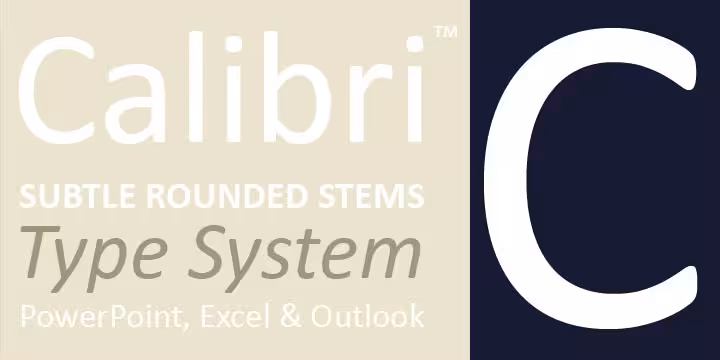
Microsoft’s default font is at the center of a government corruption case
After creating a font in 2004, its creators probably never thought it’d be used as evidence in a government corruption case. Microsoft, for its part, couldn’t have foreseen it either after making Calibri the default option on products like PowerPoint, Excel, Outlook, and WordPad in 2007.
Unintended use case aside, Calibri currently sits at the center of a corruption investigation involving Pakistan’s Prime Minister, Nawaz Sharif.
Accused of illegally profiting from his position since the 1990s, Sharif is now under investigation by the Joint Investigative Team — a collective of Pakistani police, military, and financial regulators — after a treasure trove of evidence surfaced with 2016’s release of The Panama Papers.
In a report obtained by Al Jazeera, investigators recommended a case be filed in the National Accountability Court after concluding there were “significant gap[s]” in Sharif’s ability to account for his familial assets.
Failure on the part of all respondents to produce the requisite information confirming ‘known sources of income’ is […] tantamount to not being able to justify assets and the means of income.
Sharif contends that neither he, nor his family, profited from his position of power, a denial that came under scrutiny today after his daughter and political heir apparent, Maryam Nawaz, produced documents from 2006 that prove her father’s innocence.
Unfortunately for the Nawaz family, type experts today confirmed the documents were written in Calibri, a font that wasn’t available until 2007.
For Nawaz, it looks like you can add forgery to a list of offenses that already features millions in possibly illegal offshore holdings and shady real estate deals.